Other Parties brand identity and opening ident
For Other Parties Film Company I designed bespoke typeface to create a full suite of logos. The brand leads with a chaos layout, with a horizontal version and iconic monogram supporting in other spaces.
Other Parties chaos logo
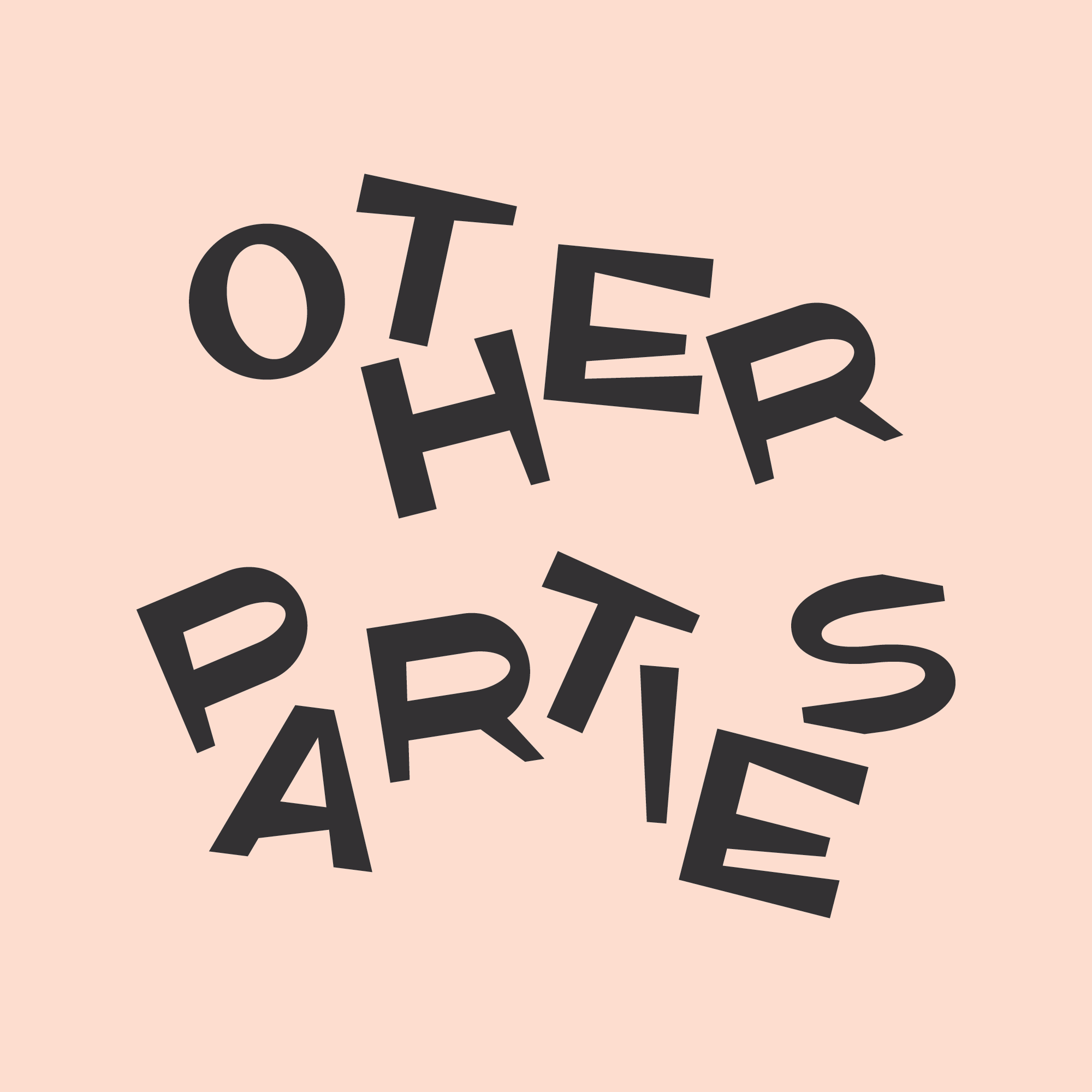
Other Parties all brand elements animation
Other Parties cinema ident
Other Parties OP monogram
Other Parties Film Company full wordmark